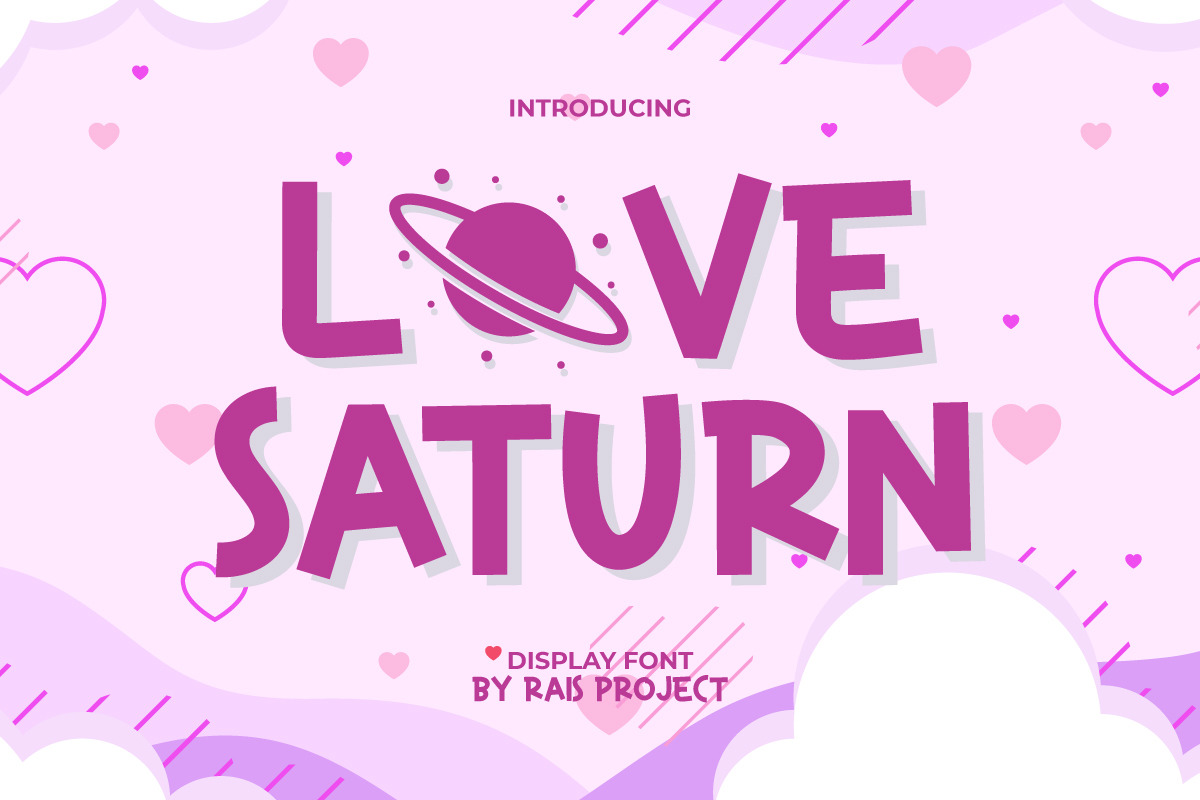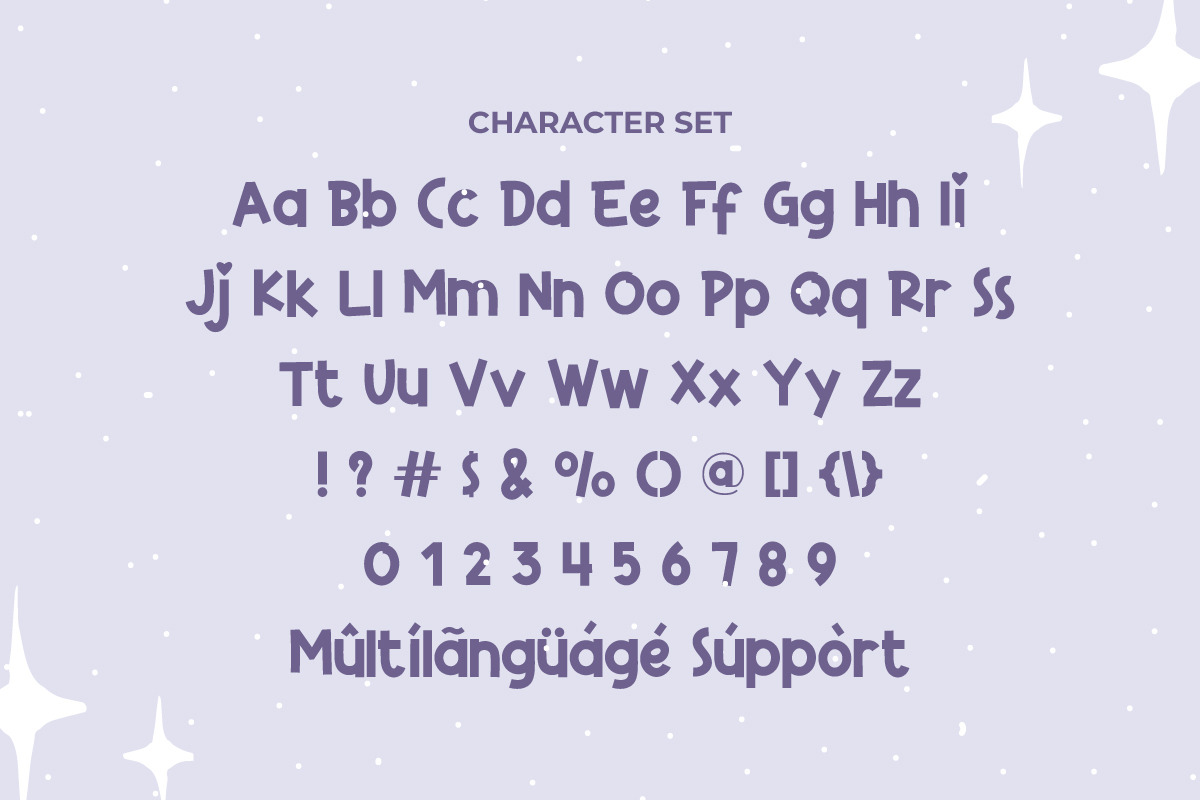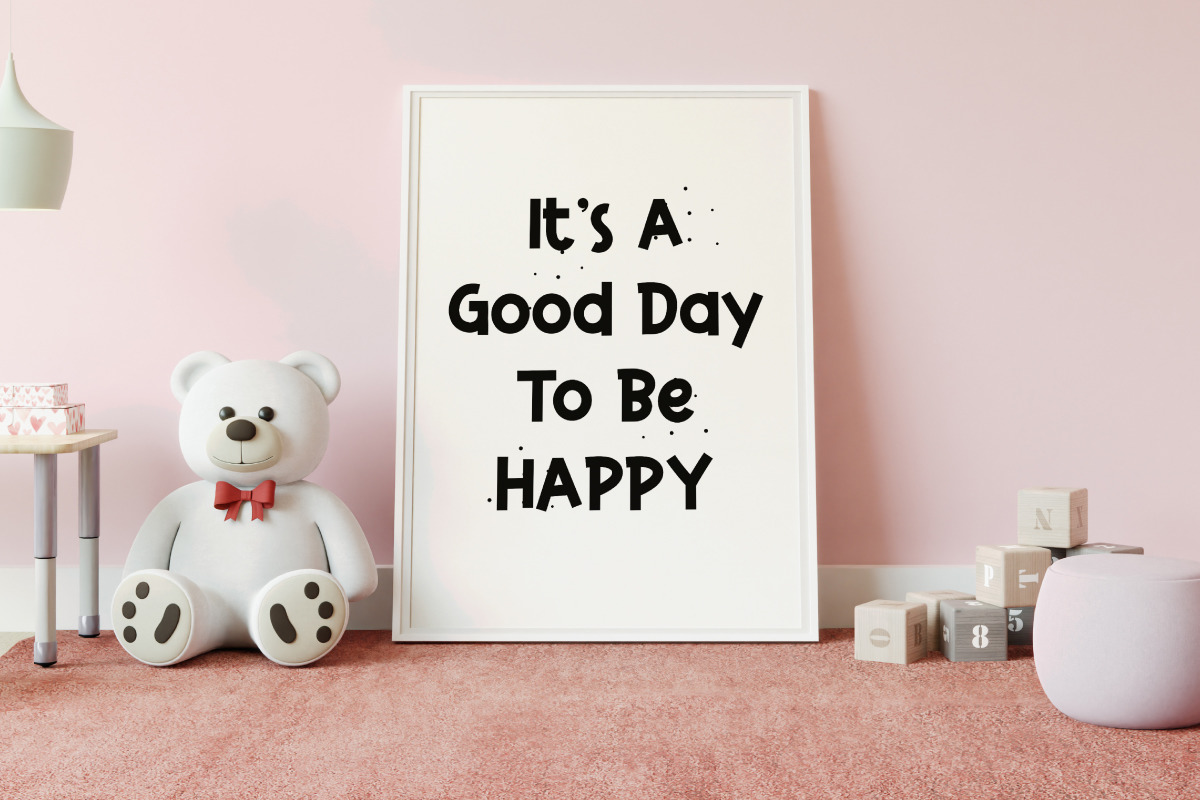
Love Saturn Font
Love Saturn Font is a fun sans serif display font with fun playful characters. Inspired by planet and space that comes with exclusive and modern font. This font works great on blog, logo branding, business card, poster, product designs, birthday invitations, quote, brochure, book covers and many more. This font give a cheerful feel to any project.
The Features of Love Saturn Font
Multilanguage Support